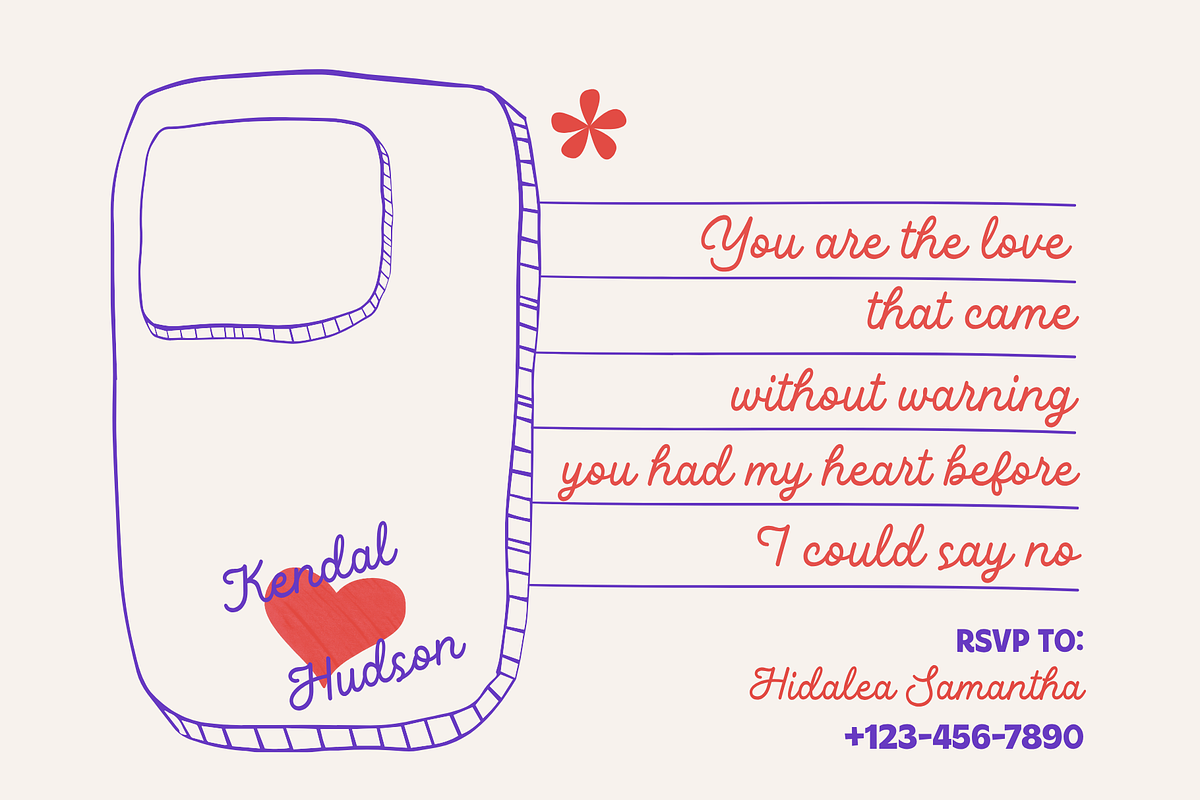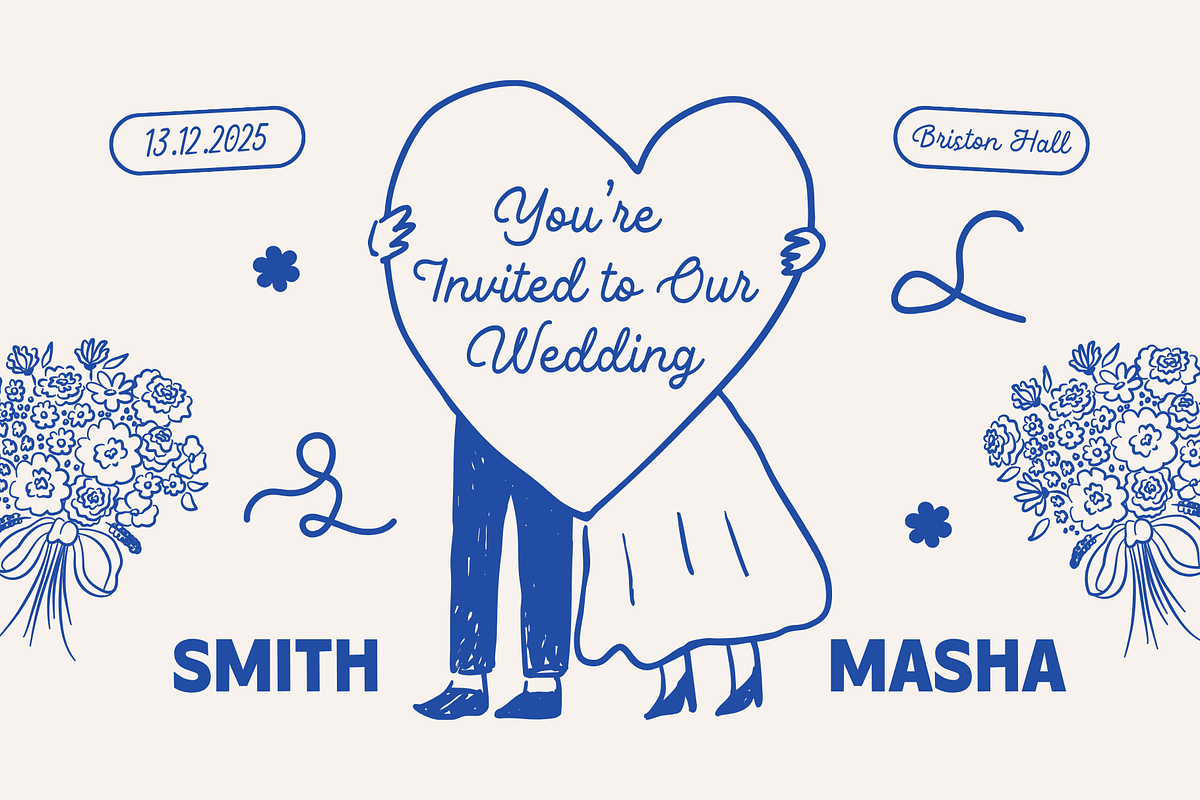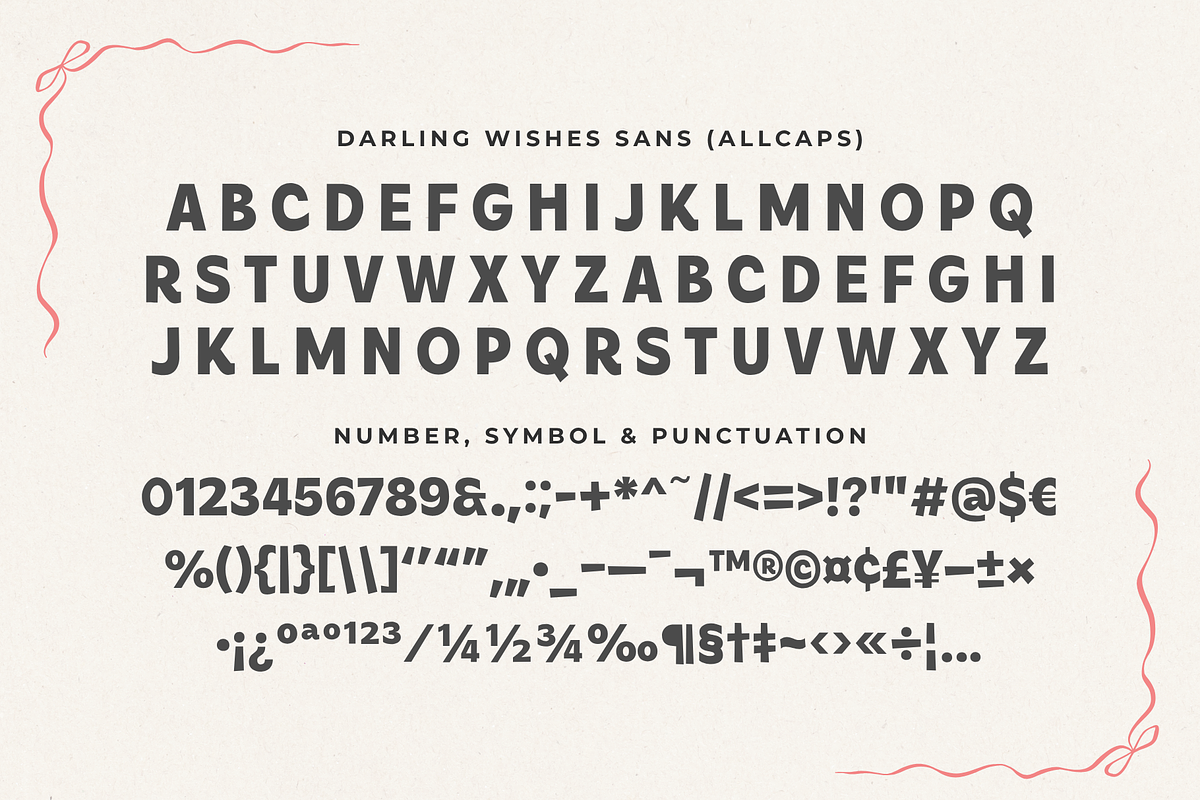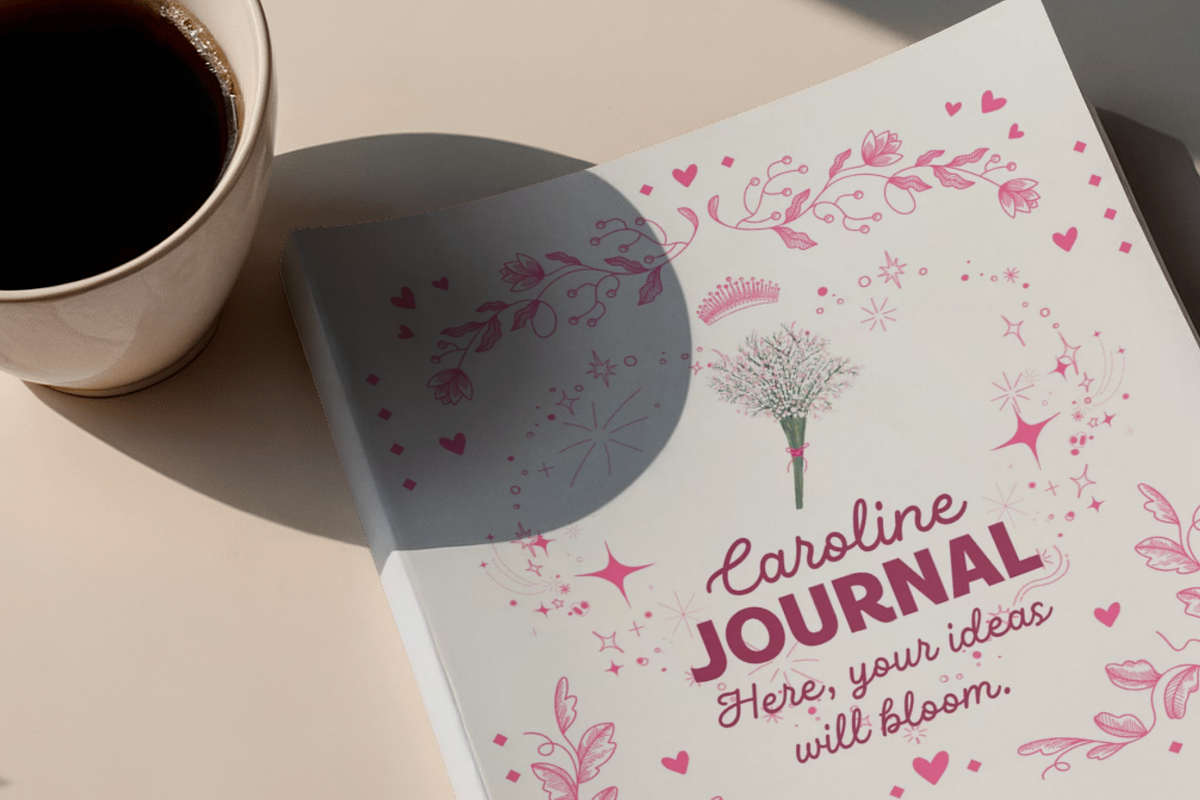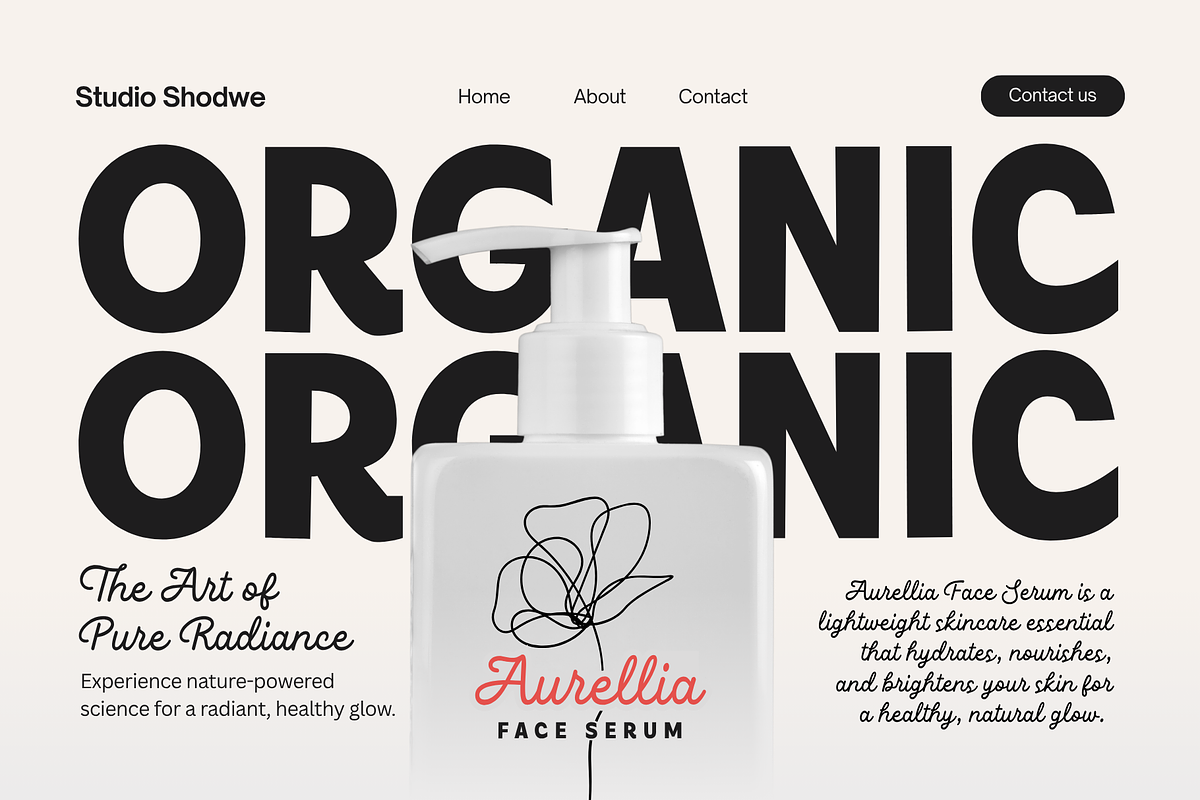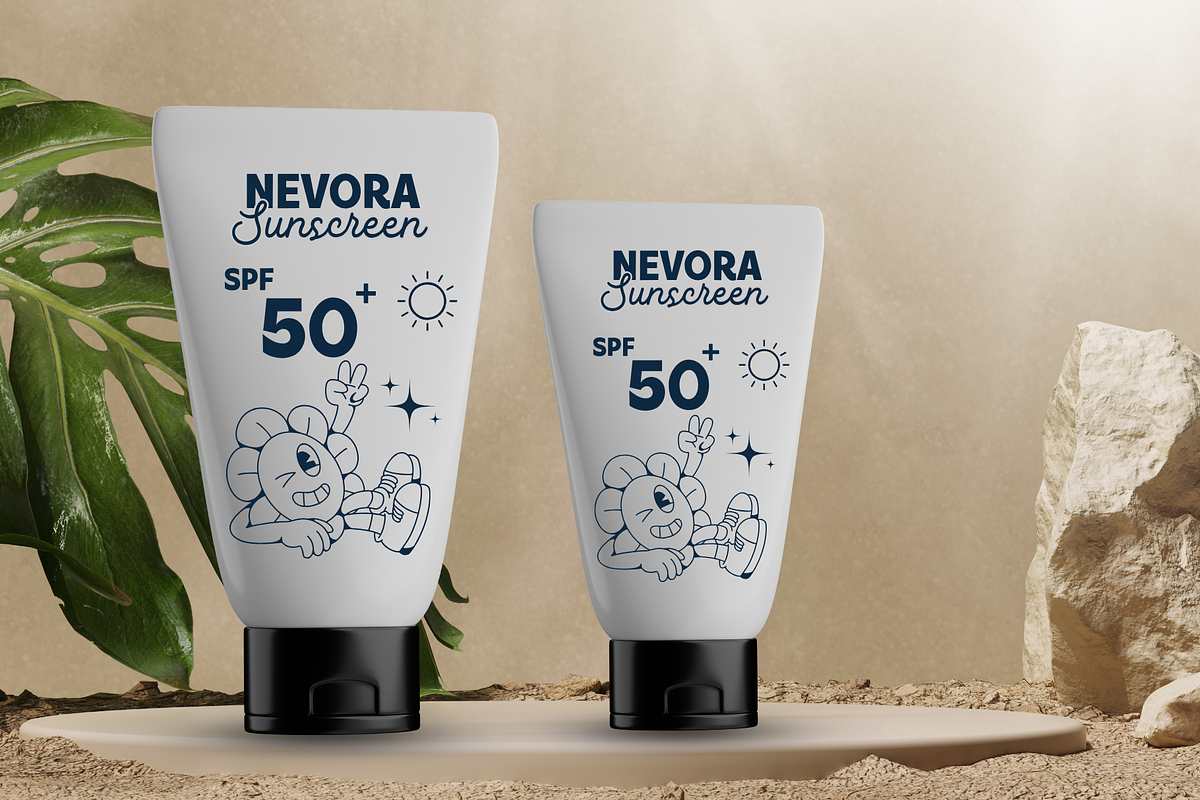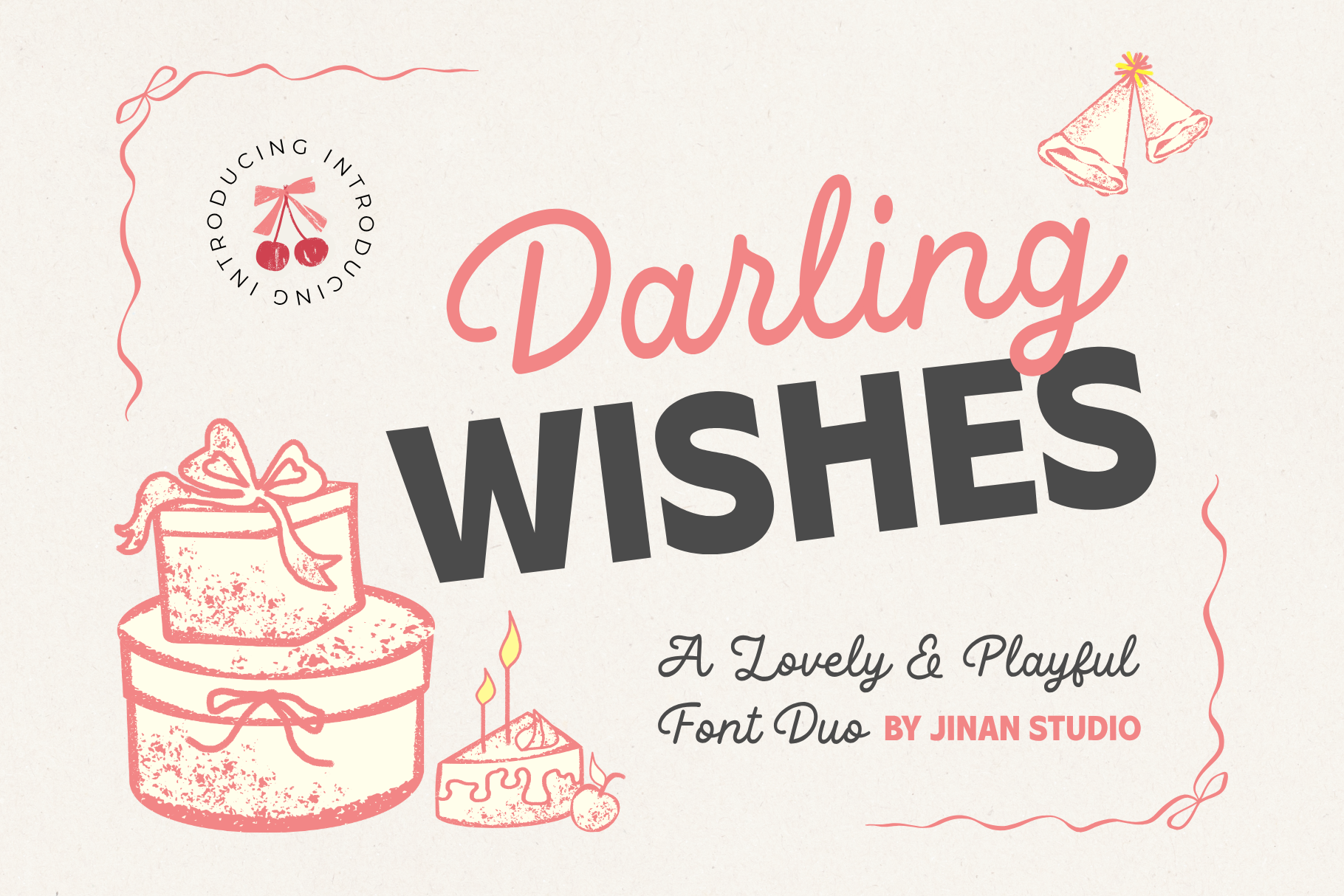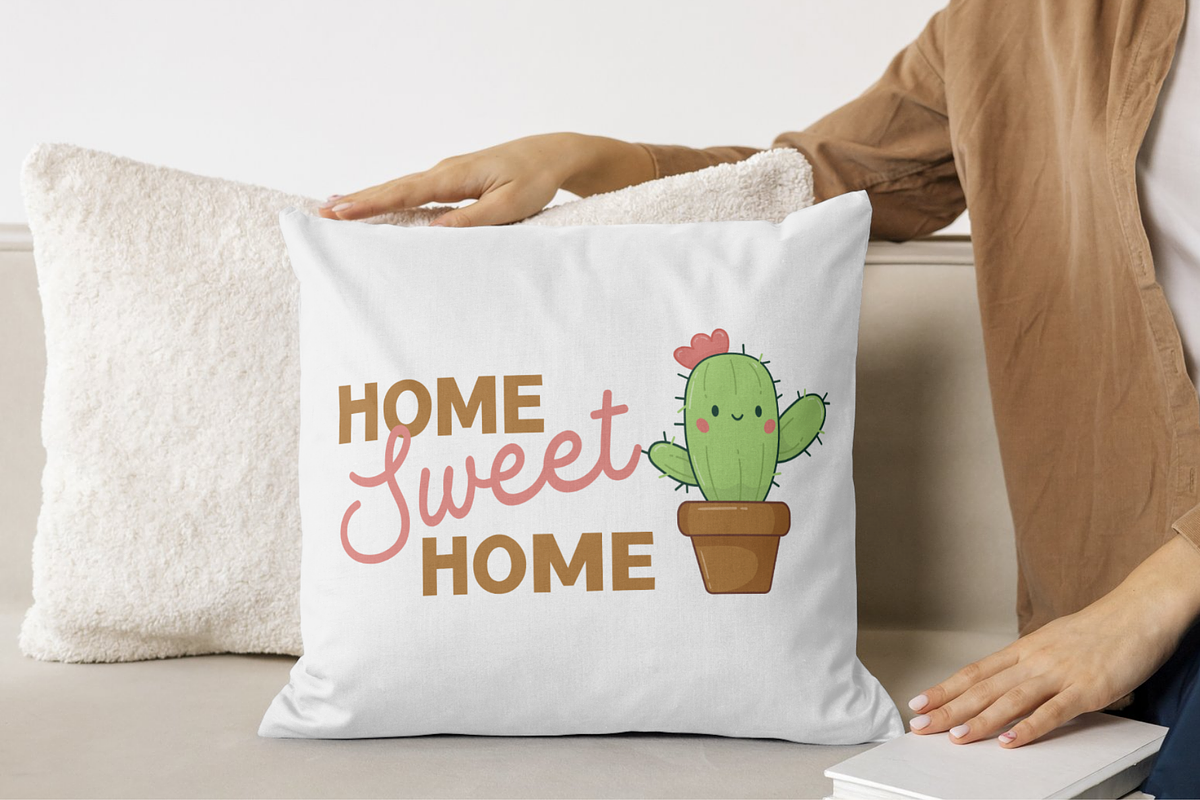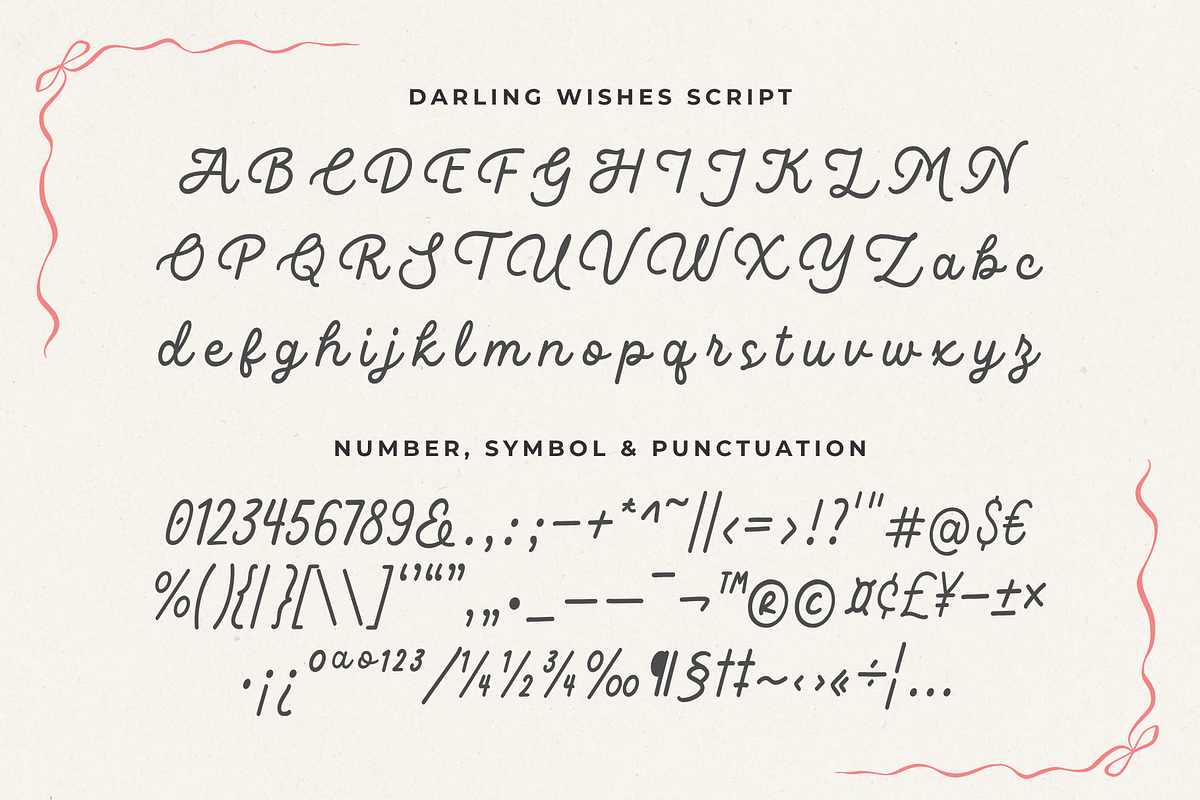
Darling Wishes Font Duo
Meet Darling Wishes, a lovely and playful font duo that combines a smooth handwritten script with a bold sans serif. Designed for both elegant and fun projects, this versatile pairing adds warmth, charm, and personality to any design.
Perfect for logos, branding, wedding invitations, birthday cards, product packaging, café branding, social media posts, posters, stickers, merchandise, and other creative projects. The handwritten script brings a personal touch, while the bold sans serif creates strong, eye-catching headlines.
Handwritten Script & Bold Sans Serif
Darling Wishes is a great choice for designers looking for a font duo, handwritten script font, bold sans serif font, branding font, invitation font, or playful display font. Whether you're creating branding, stationery, packaging, or social media content, Darling Wishes brings a sweet and modern touch to every design.